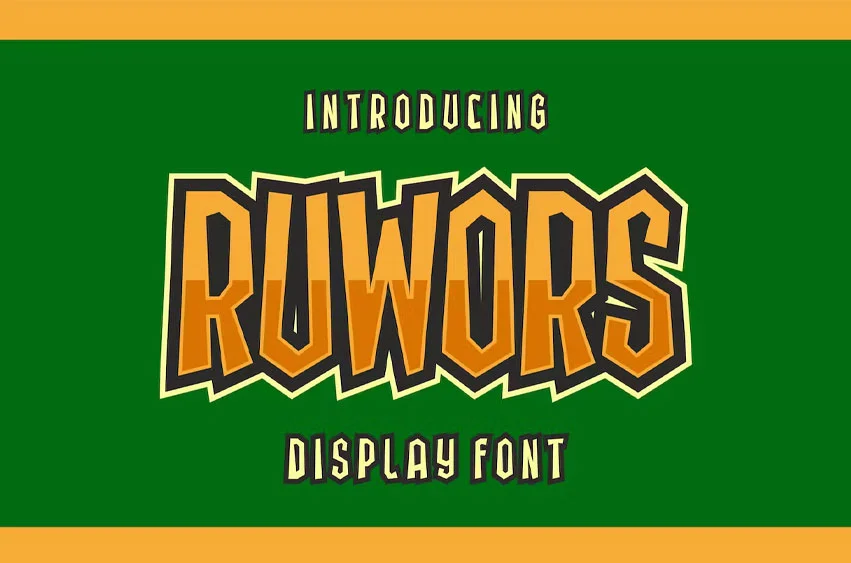
Ruwors Font
Ruwors Font Perfectly suited on print/screen. it’s perfect for Branding, name card, poster, logo, magazine, cover, banner, t-shirt and headers, or even large-scale artwork.